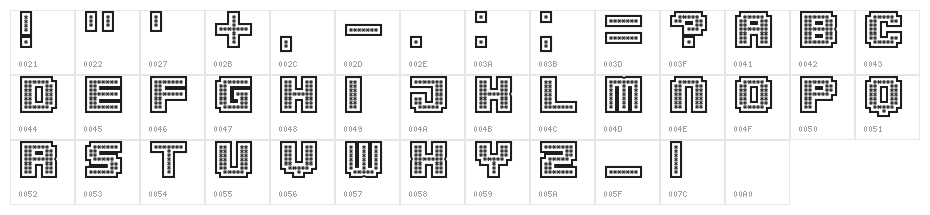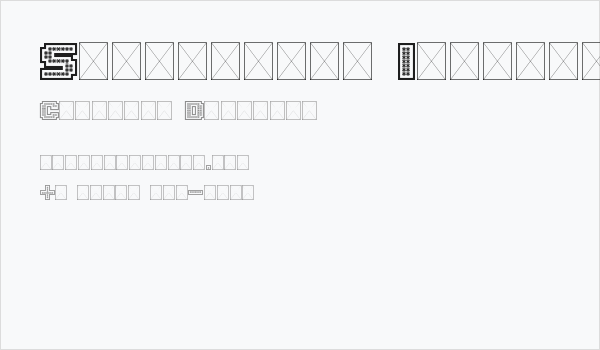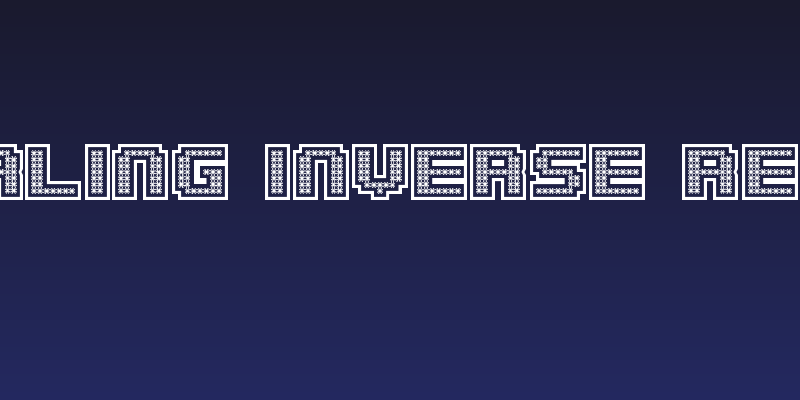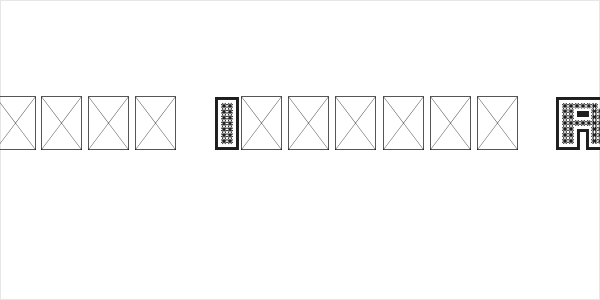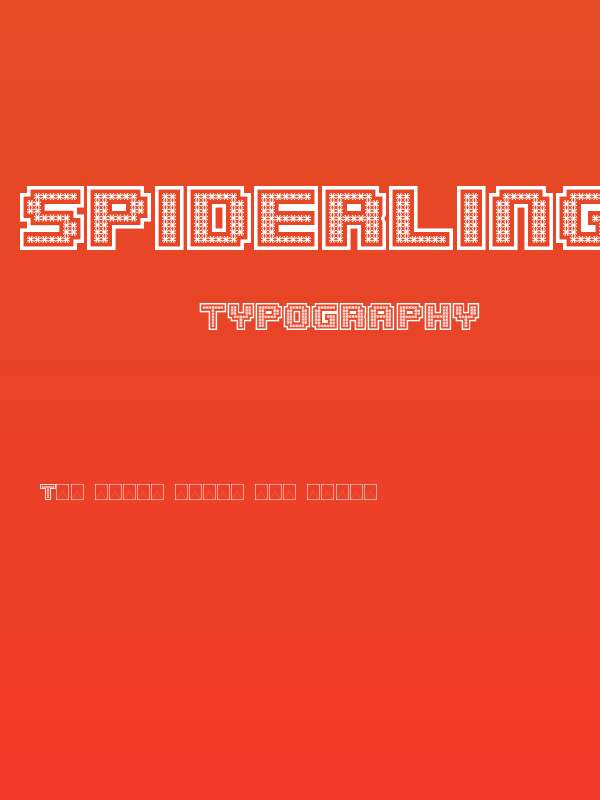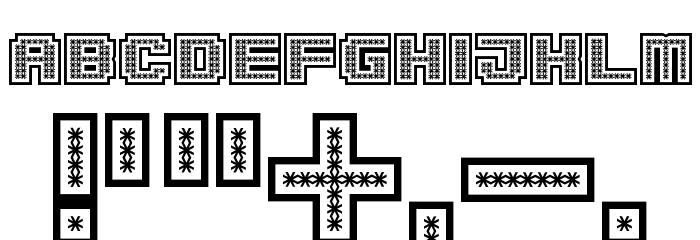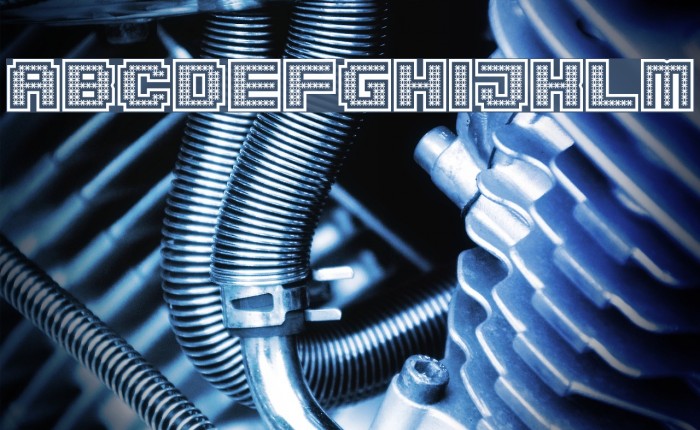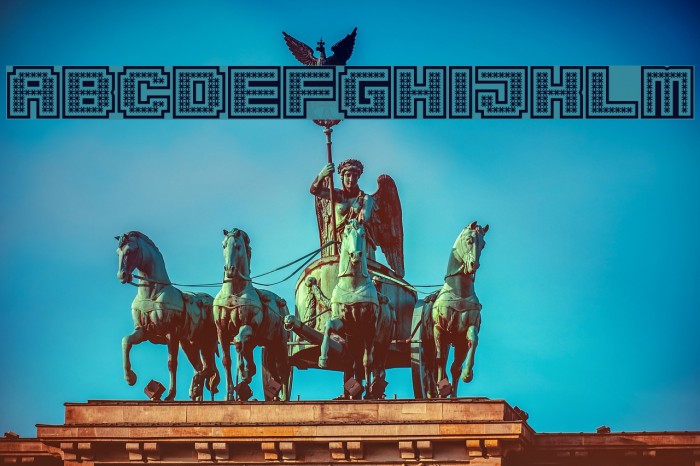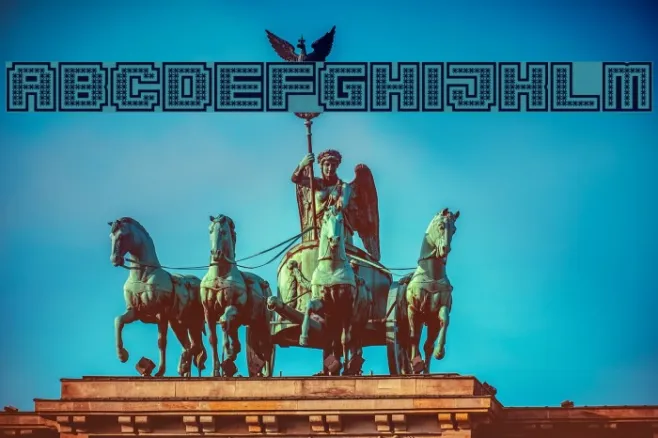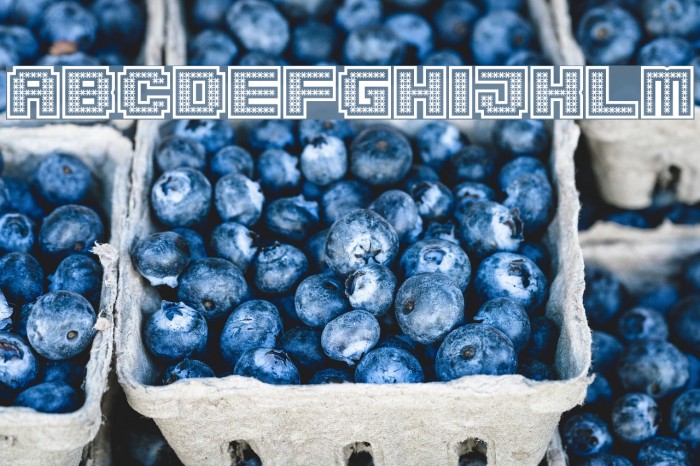
Spiderling Inverse Regular Font
Spiderling Inverse Regular Description
This font features a bold, decorative style with a unique pattern inside each character. The letters are outlined with a thick border, creating a striking contrast between the filled pattern and the outer edges. The design is reminiscent of pixel art, with a blocky, geometric structure that gives it a modern yet retro feel. The characters are evenly spaced, maintaining a consistent visual rhythm across the alphabet. This font is particularly eye-catching and would stand out in any design project that requires a bold statement.
| Proposed Projects | Ideal for video game graphics, retro-themed posters, or any project needing a bold, eye-catching typeface. |